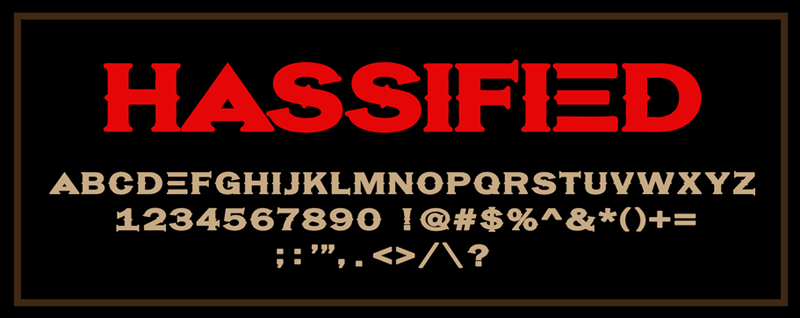
Font name: | Hassified |
Author: | Michael Hassler |
Hassified is a Gothic modern font. Inspired by the bold block biker style. Free for personal use. For commercial licensing, please see http://hassified.blogspot.com/ Thanks! |